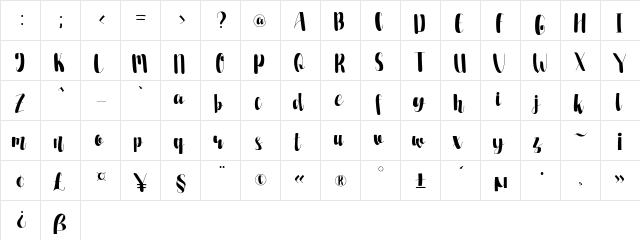
Pevitta Regular
Design Context for Pevitta Typeface
Pevitta is a composed and adaptable typeface that performs quietly and consistently across a wide range of design contexts.